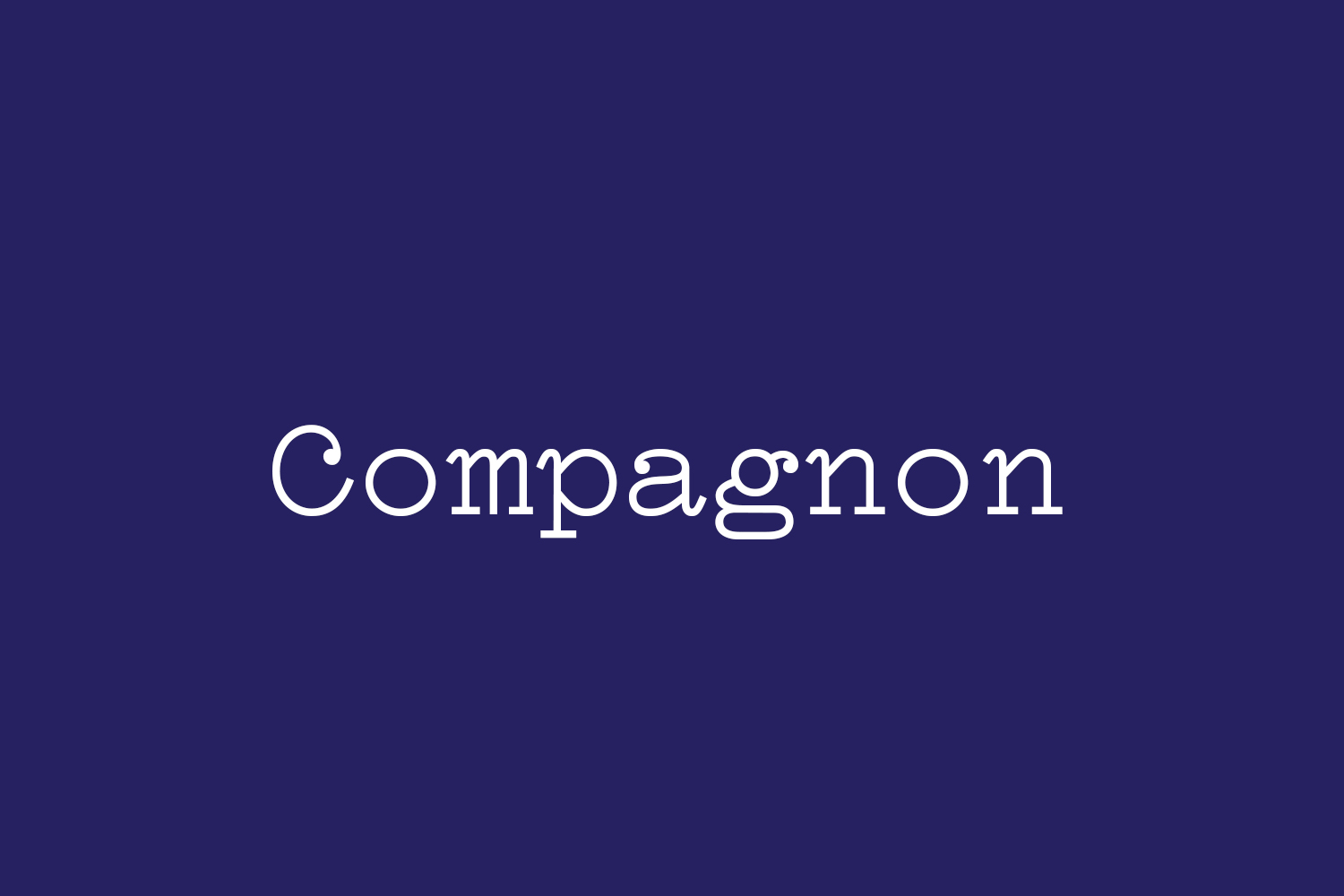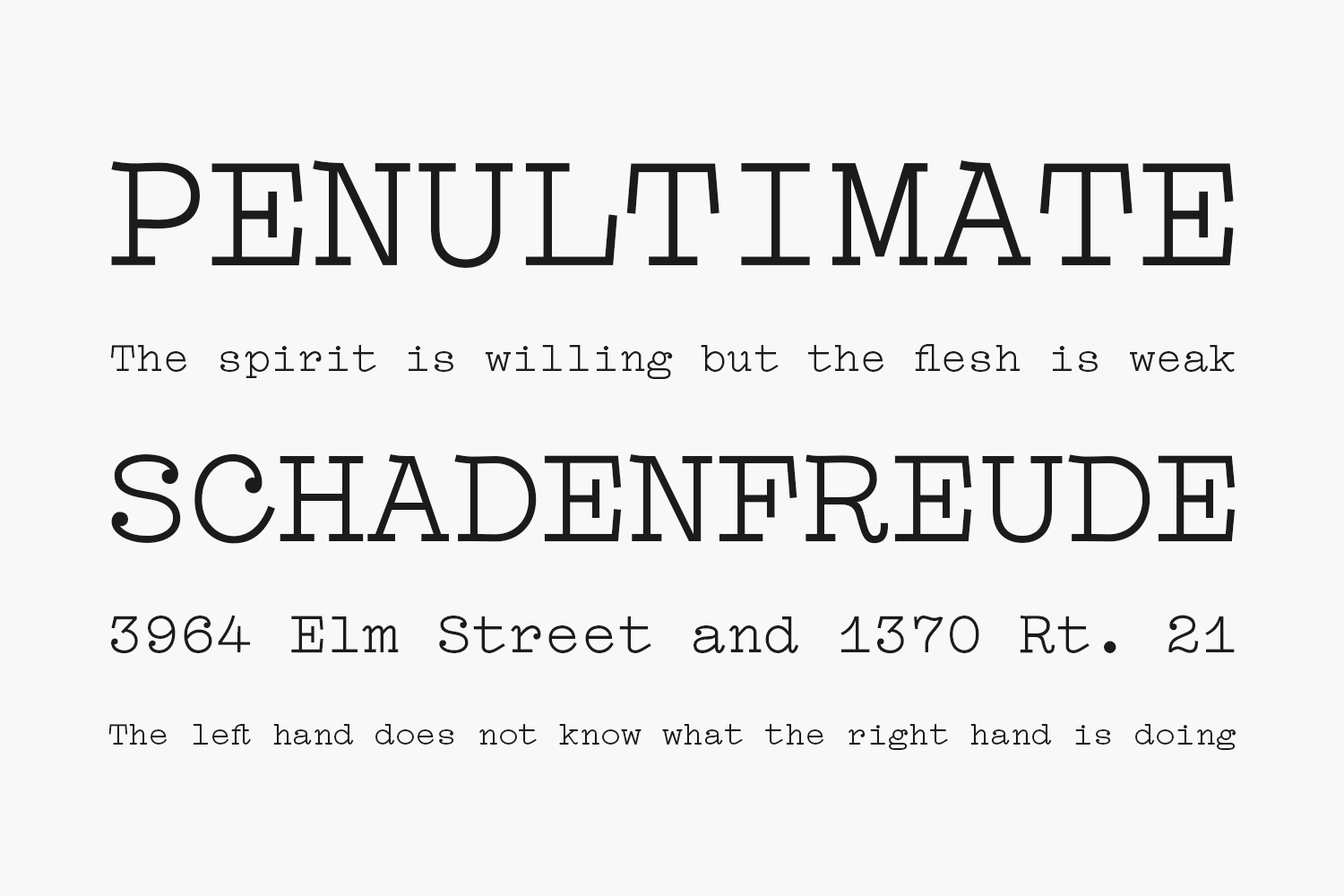
Compagnon Free Font Family is a typeface family composed of five distinctive styles. It finds its inspiration in the online archives of Typewriter Database specimens and combines different periods of the history of typewriter typefaces. Each weight is based on singular references relating to significant periods aiming to underline the evolution of typewriter characters as they are called.
Compagnon Light and Roman have been drawn by Juliette Duhé and Léa Pradine; Compagnon Italic by Valentin Papon; Compagon Medium by Sébastien Riollier and Compagnon Script by Chloé Lozano. Meet Compagnon. You can use it, modify it and redesign it freely.